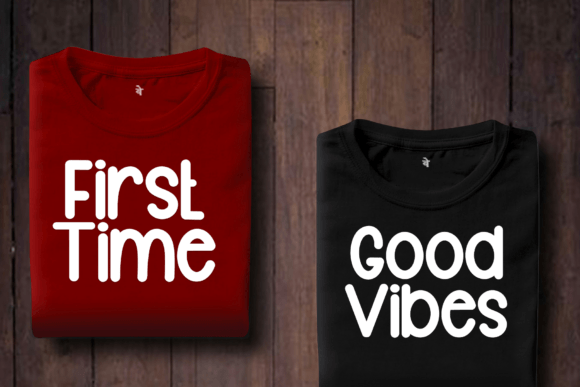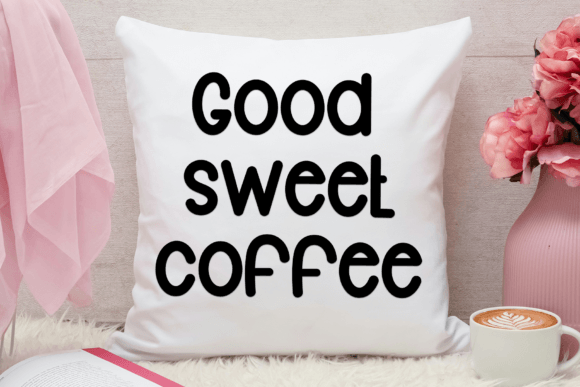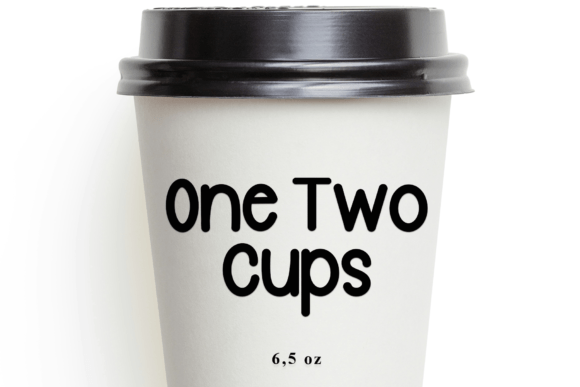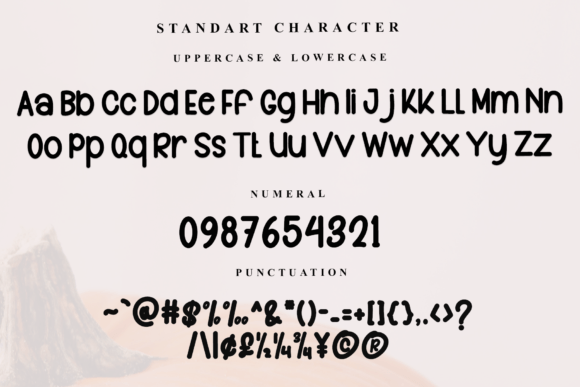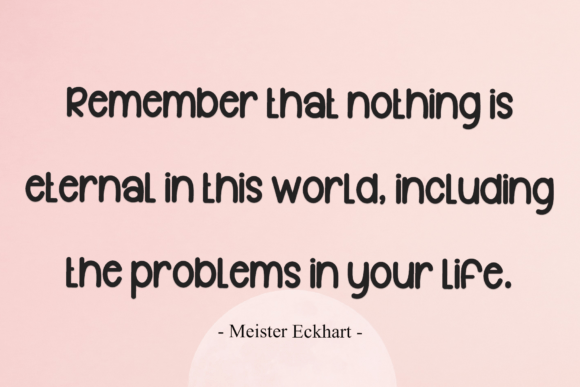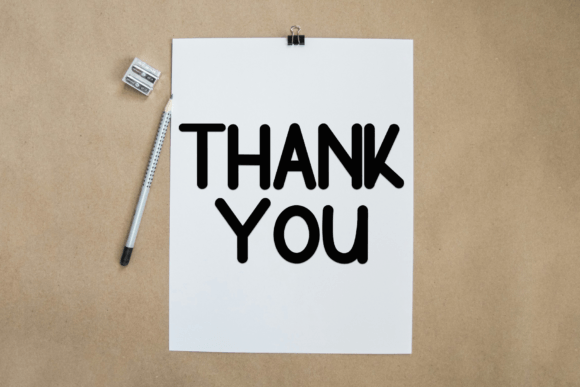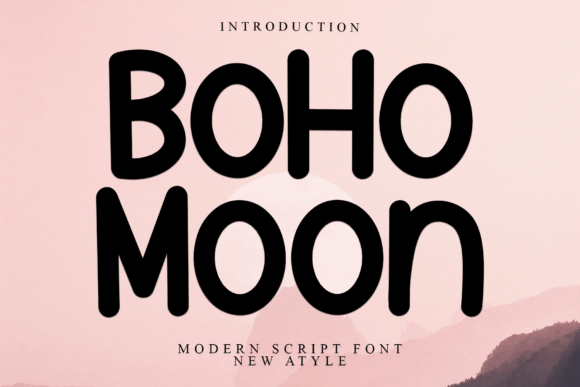
Introducing Boho Moon Font: Elevate Your Designs with Elegance and Whimsy
Are you a designer, crafter, or creative enthusiast looking for a font that embodies the perfect blend of delicacy, elegance, and playfulness? Look no further than the Boho Moon Font. This stunning handwritten font is designed to bring a touch of sophistication and charm to your projects, making it an ideal choice for a wide range of creative endeavors.
The Beauty of Boho Moon Font
Boho Moon Font is a delicate, elegant, and flowing handwritten font that boasts beautiful and well-balanced characters. Its unique charm lies in its ability to match a wide pool of designs, making it an incredibly versatile addition to your font collection. Whether you’re working on a branding project, crafting a stylish invitation, or creating a captivating blog post, Boho Moon Font is sure to make your ideas come alive.
Key Features of Boho Moon Font
- Delicate and Elegant Design: Boho Moon Font features a beautiful, hand-crafted design that exudes elegance and sophistication.
- Well-Balanced Characters: Each character is carefully crafted to ensure perfect balance and harmony, making it perfect for a wide range of design applications.
- PUA Coded: This font is PUA (Private Use Area) coded, which means you can easily access all the amazing glyphs and ligatures to add an extra touch of personality to your designs.
- Versatile and Adaptable: Boho Moon Font matches a wide pool of designs, making it an excellent choice for various creative projects.
Why Choose Boho Moon Font?
As a designer or crafter, you’re constantly on the lookout for fonts that can help you stand out from the crowd and bring your ideas to life. Boho Moon Font offers a unique combination of style, elegance, and playfulness that sets it apart from other fonts. Here are just a few reasons why you should consider adding Boho Moon Font to your collection:
Unlock Endless Creative Possibilities
- Branding and Logos: Create stunning brand identities and logos that exude elegance and sophistication.
- Invitations and Stationery: Craft beautiful invitations, greeting cards, and stationery that make a lasting impression.
- Blog Posts and Articles: Add a touch of whimsy and personality to your blog posts and articles to engage your readers.
- Crafting and DIY Projects: Use Boho Moon Font to add a personal touch to your crafting and DIY projects, such as handmade cards, scrapbooking, and more.